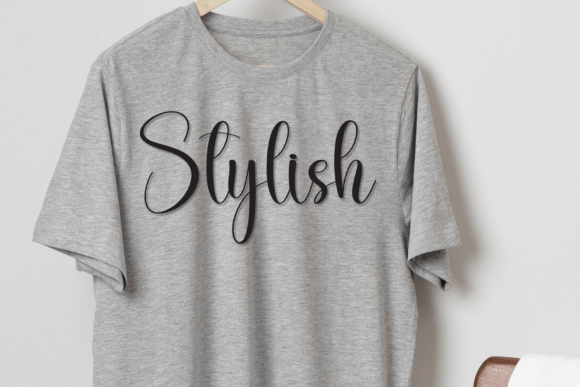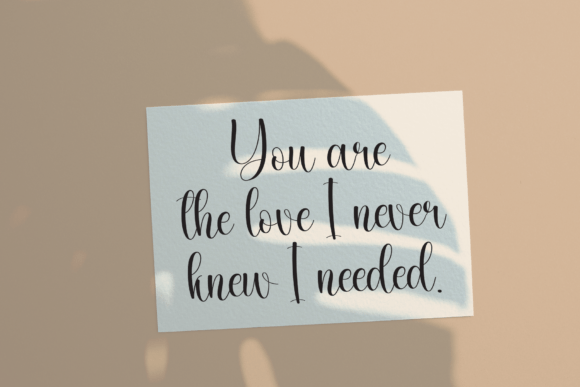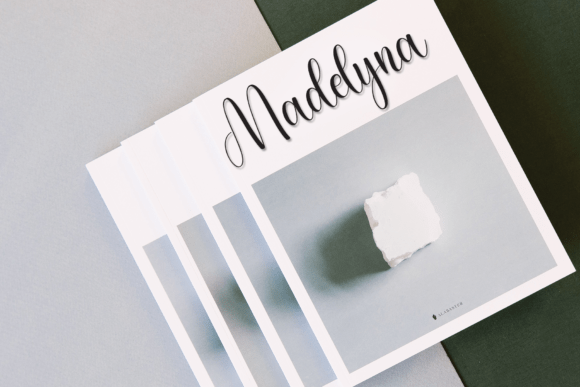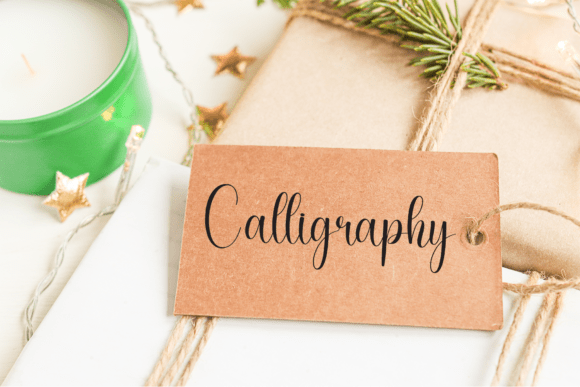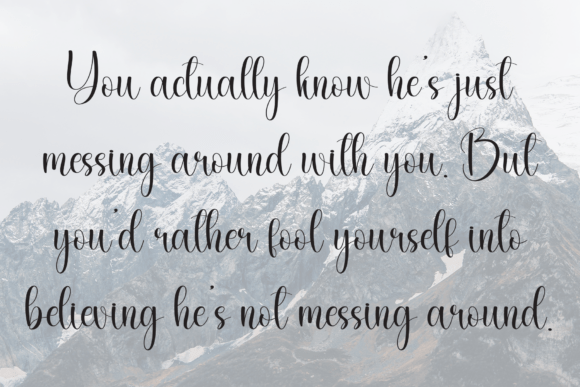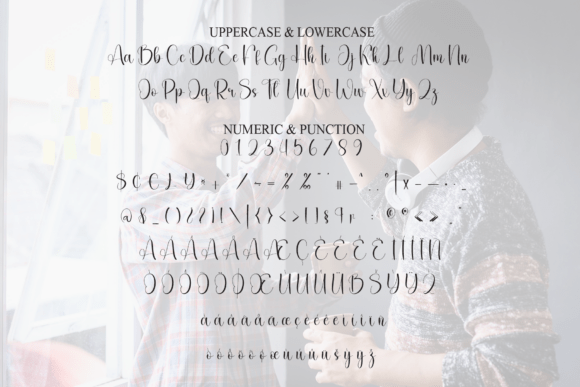
Introducing Buddy Font: The Whimsical Display Font for Your Creative Projects
Are you looking for a font that can add a touch of whimsy and friendliness to your designs? Look no further than Buddy Font, a handcrafted display font that is sure to capture the hearts of designers and crafters alike. With its exquisite balance of sweetness and approachability, this font is perfect for a wide range of projects, from sentimental wedding invitations to fun-loving cards and more.
The Charm of Buddy Font
Buddy Font is more than just a collection of letters – it’s a playful spirit that infuses a fun-loving touch into every design. Its charming allure is impossible to resist, making it the perfect choice for designers who want to add a dash of delight to their creations. Whether you’re working on a wedding invitation, a greeting card, or any other project that requires a personal touch, Buddy Font is sure to shine.
Key Features of Buddy Font
- Handcrafted with love: Each letter in Buddy Font has been carefully crafted to ensure a unique and personal touch.
- Whimsical and playful: This font is designed to add a fun-loving touch to your designs, making it perfect for projects that require a dash of personality.
- Exquisite balance of sweetness and friendliness: Buddy Font strikes the perfect balance between sweetness and approachability, making it suitable for a wide range of projects.
- Perfect for sentimental projects: This font is ideal for wedding invitations, anniversary cards, and other sentimental projects that require a touch of elegance and whimsy.
Uses for Buddy Font
Buddy Font is a versatile display font that can be used for a wide range of projects, including:
- Wedding invitations: Add a touch of whimsy and romance to your wedding invitations with Buddy Font.
- Greeting cards: Create heartfelt cards for special occasions, such as birthdays, anniversaries, and holidays.
- Social media graphics: Use Buddy Font to add a playful touch to your social media graphics, such as Facebook posts and Instagram stories.
- Branding and packaging: Add a personal touch to your brand’s packaging and marketing materials with Buddy Font.
Why Choose Buddy Font?
With so many fonts available, why choose Buddy Font? Here are just a few reasons why designers and crafters love this whimsical display font:
- Unique and eye-catching: Buddy Font is a one-of-a-kind font that is sure to grab attention.
- High-quality design: Buddy Font has been carefully crafted to ensure a high level of quality and attention to detail.
If you’re looking for a font that can add a touch of whimsy and friendliness to your designs, look no further than Buddy Font. With its exquisite balance of sweetness and approachability, this handcrafted display font is perfect for a wide range of projects, from sentimental wedding invitations to fun-loving cards and more. So why wait? Download Buddy Font today and start adding a dash of delight to your creations!
Whether you’re a designer, crafter, or DIY enthusiast, Buddy Font is sure to become a favorite in your font collection. Its playful spirit and charming allure make it the perfect choice for anyone looking to add a personal touch to their designs. So go ahead, get creative, and let Buddy Font bring a smile to your face and a touch of magic to your projects!